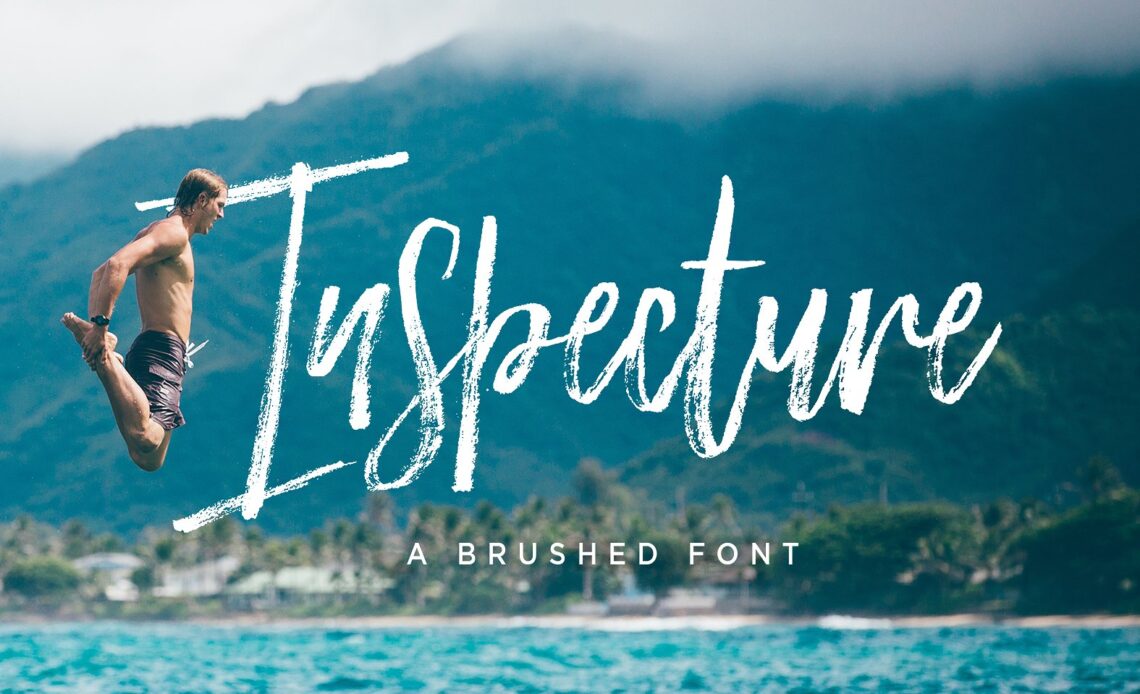
Unleash the Raw Beauty of Imperfection with Inspecture Script: A Font Family That Captivates and Intrigues
In a world of polished perfection, Inspecture Script emerges as a breath of fresh air, a font family that celebrates the beauty of the handcrafted, the charm of the imperfect. Inspired by the strokes of a skilled brush, Inspecture captures the essence of human touch, adding a layer of authenticity and soul to your digital creations.
Journey into the world of Inspecture Script, where each glyph is a testament to the artistry of its creation. The carefully crafted curves and flourishes evoke a sense of nostalgia, reminiscent of handwritten love letters and vintage posters, while the bold strokes exude a sense of confidence and playfulness.
With Inspecture Script as your design companion, you'll find endless possibilities to express yourself. Whether you're crafting social media posts, designing logos, creating captivating posters, or simply adding a touch of personality to your digital projects, this font family will elevate your work to new heights.
Dive into the depths of Inspecture Script's versatility. Its unique character shines through in headlines, adding a touch of intrigue and curiosity. In body text, it weaves a tale of elegance and sophistication, inviting your readers to linger and absorb every word. From playful invitations to formal documents, Inspecture Script adapts effortlessly, making it the perfect choice for any design adventure.
But Inspecture Script is more than just a collection of letters; it's an experience that sparks imagination and ignites creativity. Let your designs break free from the mundane and embrace the allure of the imperfect. With Inspecture Script, you'll discover a new realm of design possibilities, where the charm of the handmade captivates and the power of expression knows no bounds.